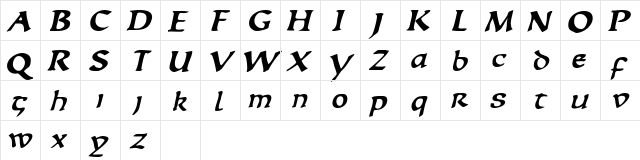
EscudeDisplaySSK BoldItalic Font Preview
Design Context for EscudeDisplaySSK Typeface
EscudeDisplaySSK is built around its visual character rather than neutral utility — its distinctive forms are designed to make an impression at display sizes. The slanted form adds forward momentum and visual energy. Its bold stroke weight gives it real presence on the page.
Font Pairing: Pair with a clean neutral sans-serif for body copy to let EscudeDisplaySSK's character lead without overwhelming the composition.
Pro Tip: Use EscudeDisplaySSK exclusively at display sizes — it was designed to be seen, not read at length. Let a neutral companion handle body copy.